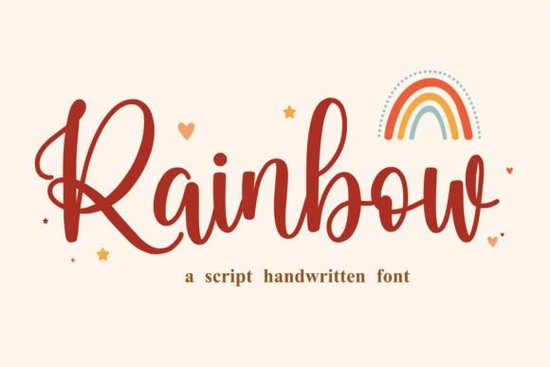
If you’ve been searching for a handwritten script font that feels like holiday cheer in letter form, Rainbow Font might be exactly what your next project needs. It’s not flashy or overly ornate just warm, playful, and full of personality. Whether you’re personalizing greeting cards, stitching names onto stockings, or designing festive banners for Thanksgiving dinner, this font brings a cozy, handmade vibe without sacrificing elegance.
What makes it especially handy is how naturally it fits into seasonal crafting. The strokes flow like ink from a well-loved pen, with gentle curves and subtle bounce that make each letter feel alive. You don’t need to be a professional designer to use it well even beginners will find it intuitive. And if you’ve worked with fonts like Helyna or Milkshake before, you’ll appreciate how Rainbow Font sits comfortably between casual charm and refined detail.
What kinds of projects does this font work best for?
It shines in any context where warmth and personality matter more than rigid structure. Think:
- Handmade holiday cards Pair it with watercolor backgrounds or foil accents for something truly special.
- Fabric embroidery The smooth curves translate beautifully to thread, whether you’re monogramming napkins or stitching gift tags.
- Wooden signs and ornaments Its organic rhythm looks great carved, painted, or laser-cut.
- Print-on-demand products Use it on mugs, tote bags, or tea towels for customers who love heartfelt, artisan-style designs.
- Place cards and menus Especially for Thanksgiving or Christmas dinners where you want things to feel welcoming, not corporate.
One thing to note: while it’s called “Rainbow,” the font itself doesn’t come in color that part’s up to you. But its name hints at the joyful energy it carries, which is why so many crafters reach for it when they want their work to feel uplifting.
How does it compare to other script fonts for holidays?
It’s less formal than Christmas Wedding, which leans toward elegant calligraphy, and not as minimalist as Single Line, which is built for engraving and fine-line applications. If you’ve used Thunder Heat Duo, you know that one has bold contrast and drama Rainbow Font is its cheerful cousin, softer and more inviting.
That said, it holds up surprisingly well at smaller sizes. Many script fonts get muddy or lose character when scaled down, but Rainbow Font keeps its legibility thanks to open counters and consistent stroke weight. That’s a big plus if you’re working on tags, labels, or anything meant to be read up close.
Any tips for using it effectively?
A few small tricks go a long way:
- Pair it with simple sans-serifs. Let the script do the talking pair it with clean, neutral fonts for balance.
- Add subtle texture. A light paper grain or watercolor wash behind your text enhances its handmade feel.
- Don’t overdo the spacing. The natural bounce works best when letters aren’t stretched too far apart.
- Use color intentionally. Even though it’s monochrome by default, try layering it in two tones (like gold + cream) for dimension.
And if you’re selling your creations whether on Etsy, at local markets, or through print-on-demand platforms this font helps your items stand out as thoughtful and personal, not mass-produced.
Is it worth adding to your font library?
If you regularly design for holidays, family events, or handmade gifts, then yes. It’s not a “one-size-fits-all” font, but that’s the point it fills a specific niche with real warmth and character. Unlike trend-driven typefaces that feel dated after a season, Rainbow Font has staying power because it’s rooted in emotion, not gimmicks.
Seasoned crafters will appreciate how quickly it elevates simple projects. Newcomers will love how forgiving and expressive it is. And small business owners? It’s an easy win for creating products that feel custom-made, even at scale.